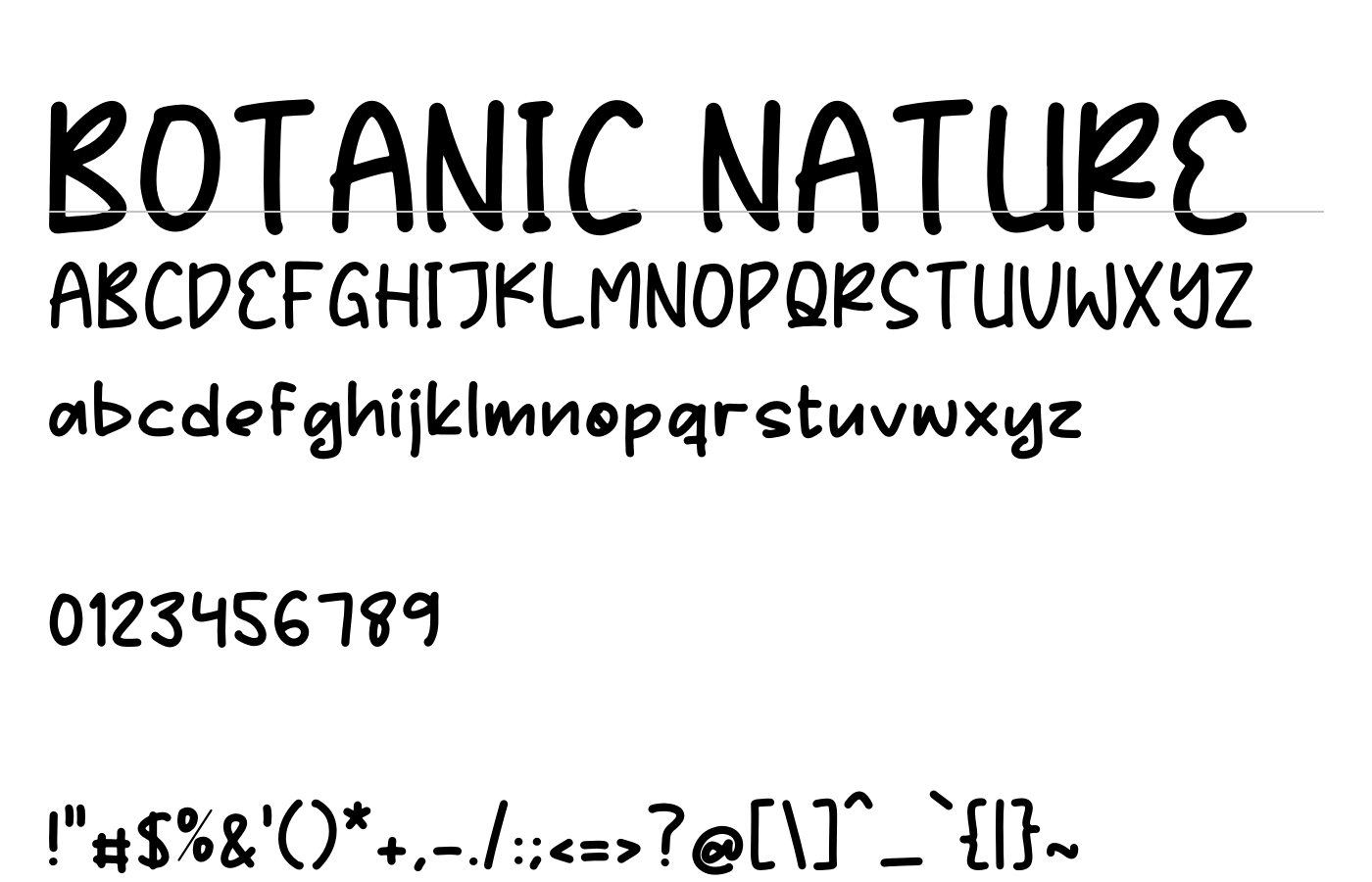
Botanic Nature is a playful and casual handwritten sans serif font that features a friendly, organic feel with its slightly irregular strokes and open letterforms. Its moderate weight and clear shapes make it easy to read while conveying a relaxed, natural vibe perfect for lifestyle, eco-friendly, or creative branding. This font works well in logos, packaging, and informal headlines where a warm, approachable personality is desired.